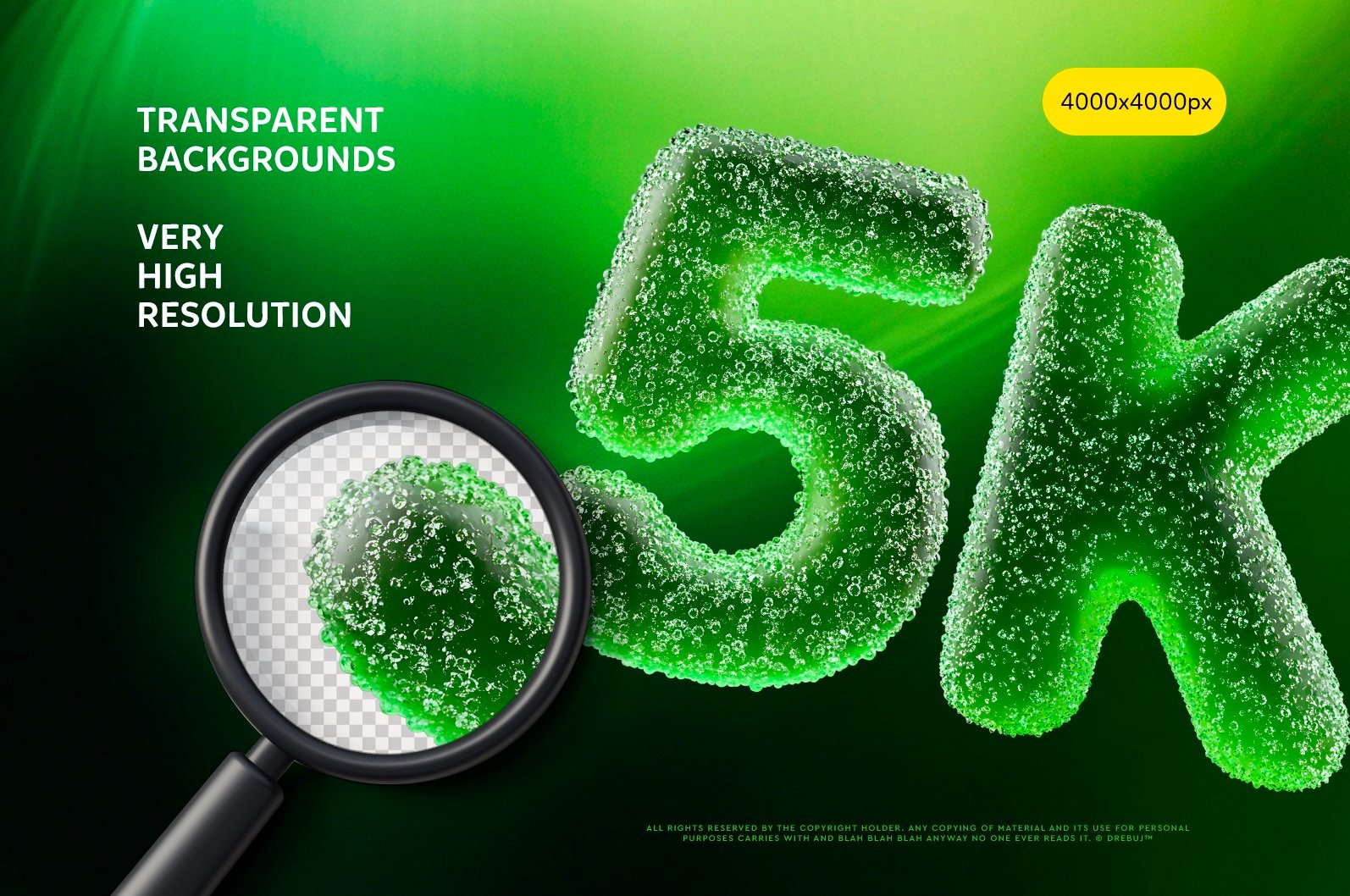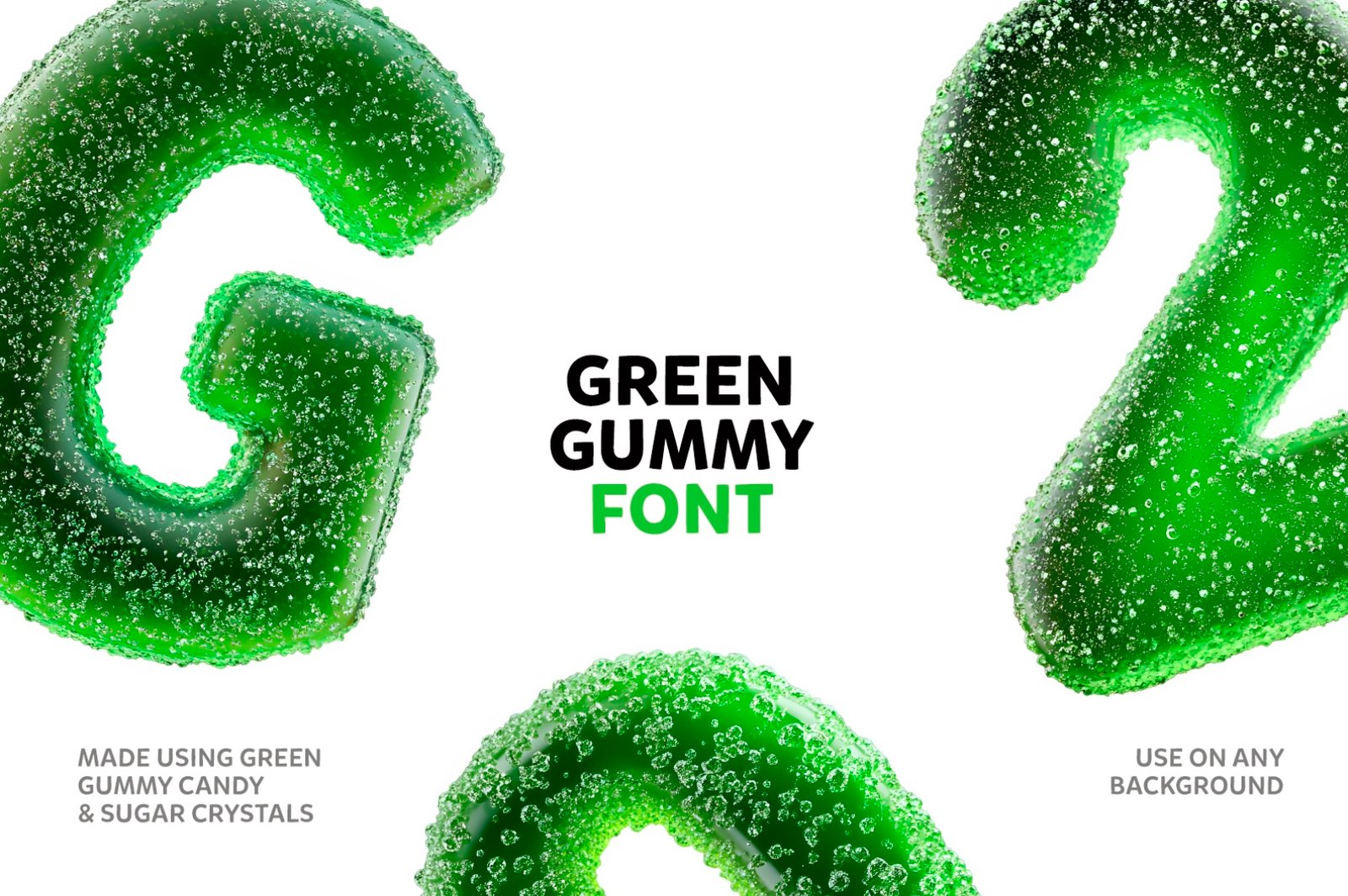
Green Gummy Font: Geometric 3D Alphabet PNG
An entire alphabet of GREEN GUMMY CANDY + SUGAR CRYSTALS letters with transparent background.
THIS IS NOT A FONT. This is a very high-quality 3d PNG font of GREEN GUM texture letters with sugar crystals on it.